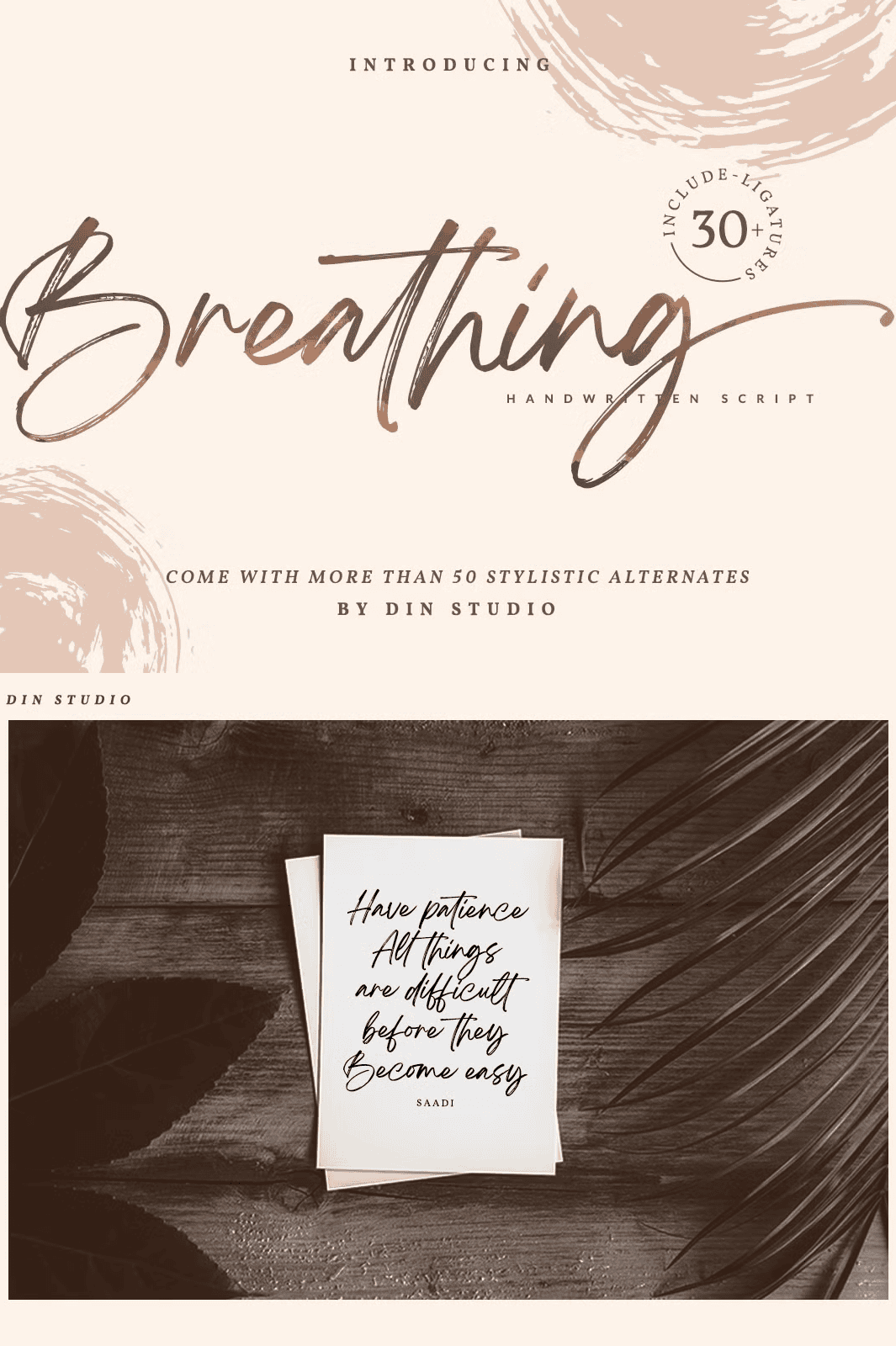
Breathing – Beautiful Brush Font
Unleash Bold, Expressive Typography with a Hand-Painted Soul
Transform your creative projects with **Breathing**, a striking brush signature font that delivers professional-grade elegance with a hand-crafted soul. Designed by a talented artist, this dynamic typeface brings life to every stroke, making it perfect for branding, posters, banners, logos, book covers, digital headings, printed materials, merchandise, and social media content.
Every letter in Breathing carries a unique character — with gentle pressure variations, flowing curves, and expressive flourishes that mimic real brushwork. It’s not just a font; it’s a creative voice that adds emotion, movement, and authenticity to your design. Use it to command attention, tell a story, or elevate brand identity with undeniable presence.
Access 52 Stylistic Sets for Infinite Design Possibilities
Take full control of your typography with **52 expertly crafted stylistic sets**, each designed to give you precise control over letterforms. Swap in alternative shapes, adjust stroke thickness, fine-tune terminals, and create variations that match your exact vision. Whether you’re going for a minimal modern look or a rich, hand-painted aesthetic, Breathing gives you the tools to make it happen — no manual tweaking needed.
Enhance Flow with 37 Seamless Ligatures
Unlock the full expressive power of Breathing by enabling **37 built-in ligatures**. These intelligent connections between characters create fluid transitions, eliminating awkward gaps and giving your text a natural, hand-drawn rhythm. Words like “and”, “the”, and “you” flow together effortlessly, enhancing readability and visual harmony — a must for professional-quality design.